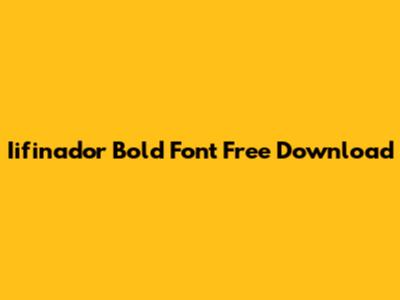
Iifinador Bold Font: Free Download Guide
Hey guys! Are you on the hunt for that perfect bold font to make your designs pop? Look no further! Today, we're diving deep into the world of the Iifinador Bold font, exploring what makes it so special, where you can snag it for free, and how to use it to its fullest potential. Let's get started!
What Makes Iifinador Bold Font Stand Out?
The Iifinador Bold font is more than just another typeface; it's a statement. Its strong, confident lines and meticulously crafted curves exude a sense of modernity and sophistication. This font is designed to grab attention, making it an excellent choice for headlines, logos, posters, and any design element that needs to stand out. The weight of the bold version adds an extra layer of emphasis, ensuring your message is not just seen but felt. One of the key reasons designers and creatives are drawn to Iifinador Bold is its versatility. It works beautifully in both digital and print mediums. Whether you're designing a website, creating a marketing campaign, or crafting a book cover, this font adapts seamlessly to the task at hand. Its legibility is also top-notch, ensuring that your text remains clear and readable even at smaller sizes. Moreover, the Iifinador Bold font often comes with a range of glyphs and alternate characters, giving you even more creative freedom. These additional characters can add unique flair and personality to your designs, setting them apart from the crowd. From swashes to ligatures, these extra touches can elevate your typography and create a visual experience that is both engaging and memorable. Another aspect that sets Iifinador Bold apart is its ability to pair well with other fonts. Whether you choose to combine it with a lighter sans-serif for a modern contrast or a classic serif for a more traditional look, this font complements a wide variety of typefaces. This versatility makes it an invaluable tool in any designer's arsenal, allowing you to create visually harmonious and balanced compositions. In summary, the Iifinador Bold font stands out due to its bold and confident design, versatility across different mediums, excellent legibility, and ability to pair well with other fonts. It's a typeface that not only looks great but also enhances the overall impact of your message, making it a must-have for any creative project.
Tips for Using Iifinador Bold Effectively
So you've got the Iifinador Bold font installed and ready to go—fantastic! But how do you make sure you're using it effectively to create designs that truly stand out? Let's dive into some tips and tricks to maximize the impact of this awesome typeface. First off, think about contrast. Iifinador Bold is, well, bold, so it pairs beautifully with lighter, more delicate fonts. Try using it for headlines with a simple sans-serif body text to create a visual hierarchy that draws the eye. A strong, bold headline in Iifinador Bold immediately grabs attention, while the lighter body text ensures readability and doesn't overwhelm the reader. Next, consider the context of your design. Iifinador Bold is great for making a statement, so it's perfect for things like posters, logos, and eye-catching social media graphics. But remember, less is often more. Overusing a bold font can make your design feel cluttered and overwhelming. Use it strategically to highlight key information and draw attention to important elements. White space is your friend! Give your Iifinador Bold elements room to breathe by surrounding them with plenty of negative space. This helps to create a clean, modern look and prevents your design from feeling too busy. Experiment with different sizes and weights to see what works best for your project. While Iifinador Bold is already a bold font, you can still play with the size to create emphasis. A larger font size will naturally draw more attention, while a smaller size can be used for subheadings or supporting text. Pay attention to kerning and tracking. Kerning refers to the spacing between individual letters, while tracking refers to the overall spacing of a block of text. Adjusting these settings can have a big impact on the readability and visual appeal of your design. In some cases, you may need to manually adjust the kerning to ensure that the letters are evenly spaced and visually balanced. Color can also play a significant role in how your Iifinador Bold elements are perceived. Experiment with different color combinations to find what works best for your brand or project. A bold font in a vibrant color can be incredibly eye-catching, while a more muted color palette can create a sophisticated and understated look. Finally, don't be afraid to break the rules and experiment! These tips are just a starting point. The best way to learn how to use Iifinador Bold effectively is to play around with it and see what you can create. Trust your instincts and have fun with it!
Common Mistakes to Avoid When Using Bold Fonts
Using bold fonts like Iifinador Bold can add emphasis and visual appeal to your designs, but it's easy to fall into common traps that can detract from your overall message. Let's take a look at some mistakes to avoid to ensure your typography is always on point. First and foremost, avoid overusing bold fonts. While it might be tempting to make everything stand out, using too much bold text can overwhelm the reader and dilute the impact of your message. Instead, reserve bold fonts for headlines, subheadings, and key words or phrases that you want to emphasize. Think of bold fonts as a tool to guide the reader's eye and highlight important information. Another common mistake is pairing bold fonts with other equally strong fonts. Combining multiple bold typefaces can create a chaotic and visually jarring effect. Instead, opt for a more subtle font pairing. For example, pair Iifinador Bold with a lighter-weight sans-serif or a classic serif font to create a balanced and harmonious design. Make sure the fonts complement each other rather than compete for attention. Ignoring readability is another pitfall to avoid. While bold fonts are great for headlines, they may not always be the best choice for body text. Long blocks of bold text can be tiring to read, so it's best to use a regular or light font for body copy. If you do use bold fonts in body text, use them sparingly to highlight key points. Pay attention to the size and spacing of your bold fonts. Using bold fonts that are too large or too small can disrupt the visual hierarchy of your design. Make sure the size of your bold fonts is appropriate for the context and that the spacing between letters and lines is adequate for readability. Avoid stretching or distorting bold fonts. Distorting a font can compromise its legibility and make your design look unprofessional. Always use fonts at their intended proportions and avoid making any alterations that could negatively impact their appearance. Finally, neglecting to test your bold fonts across different devices and platforms is a common mistake. Fonts can render differently depending on the device, browser, or operating system. Always test your designs on multiple devices to ensure that your bold fonts look consistent and readable across all platforms. By avoiding these common mistakes, you can harness the power of bold fonts like Iifinador Bold to create visually appealing and effective designs.